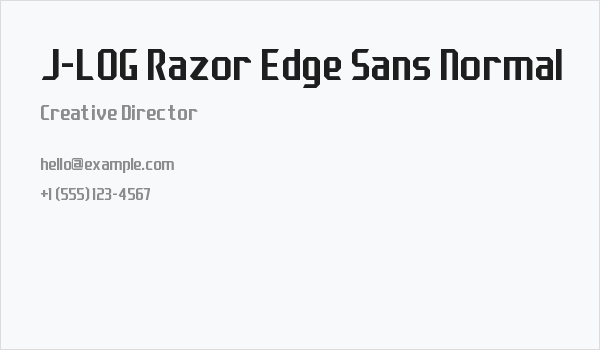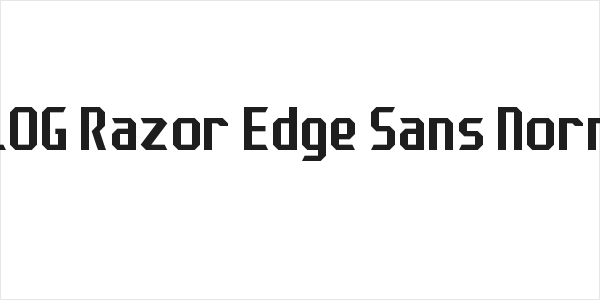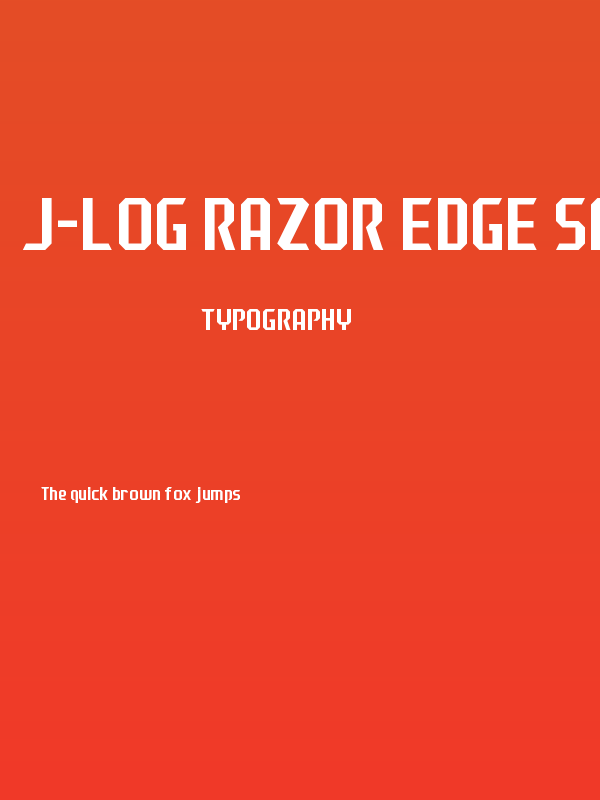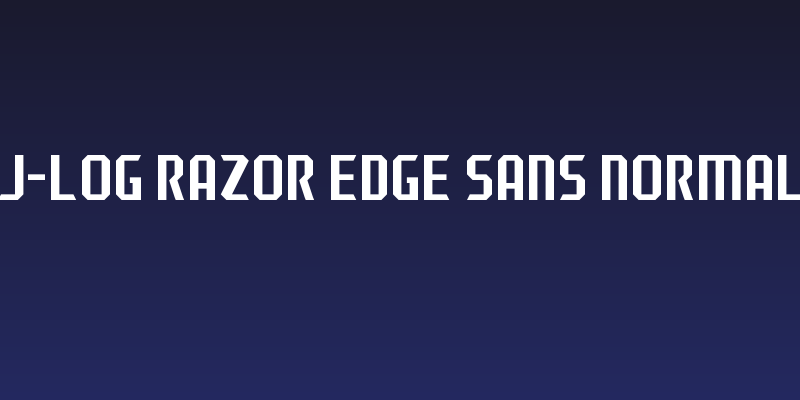
J-LOG Razor Edge Sans Normal Font
J-LOG Razor Edge Sans Normal Description
| Categories | Futuristic |
| Proposed Projects | Ideal for branding, posters, headlines, and digital interfaces where a modern and edgy look is desired. |